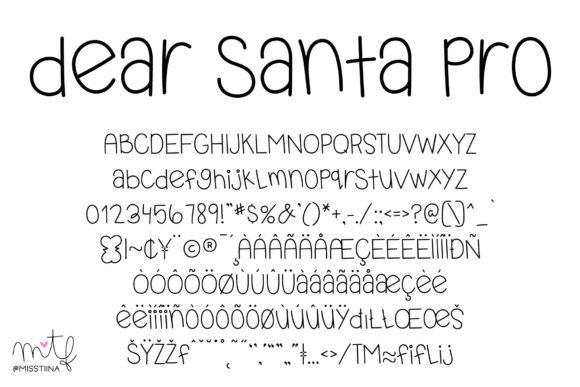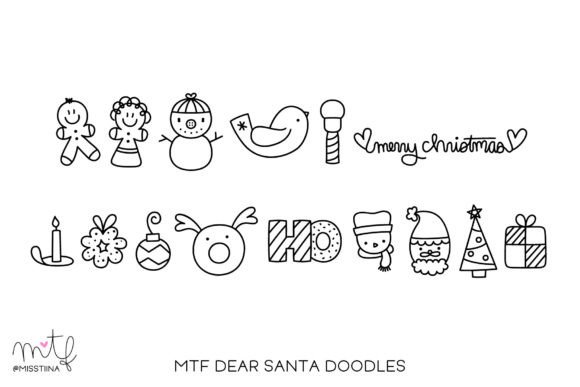
Introducing Dear Santa Pro Duo Font: A Festive and Whimsical Companion for Your Holiday Creations
Are you looking for a font that captures the magic and innocence of childhood, perfect for writing letters to Santa or creating festive holiday crafts? Look no further than the Dear Santa Pro Duo Font! This charming, handwritten font duo is designed to bring a touch of whimsy and fun to your holiday projects. In this article, we’ll dive into the features and benefits of Dear Santa Pro, and explore how you can use it to create something truly special this Christmas.
A Handwritten Font Duo like No Other
Dear Santa Pro is a unique and adorable font duo that consists of a handwritten sans font and a matching dingbats font. The handwritten sans font is designed to mimic the imperfect, yet endearing, handwriting of a child. Its rounded edges and soft curves evoke a sense of warmth and friendliness, making it perfect for writing letters to Santa, creating holiday cards, or crafting festive decorations.
The dingbats font, on the other hand, is a delightful collection of Christmas-themed illustrations, including snowflakes, holly leaves, bells, and more. These cute and original characters are designed to complement your writing and add a touch of festive flair to your projects. With Dear Santa Pro, you can create beautiful and eye-catching designs that are sure to delight both kids and adults alike.
Inspiration for Your Holiday Letters
One of the best things about Dear Santa Pro is that it not only provides a beautiful font for writing, but also offers inspiration for your holiday letters. The font comes with a range of festive phrases and sentences, such as “Dear Santa,” “Merry Christmas,” and “Happy Holidays,” to help you get started. You can use these phrases as-is, or mix and match them with your own writing to create a unique and personalized letter.
Cute and Original Christmas Doodles
One of the standout features of Dear Santa Pro is its collection of cute and original Christmas doodles. These charming illustrations are designed to complement your writing and add a touch of festive fun to your projects. From snowmen and reindeer to holly leaves and candy canes, the dingbats font has everything you need to create a beautiful and eye-catching design.
The Christmas doodles in Dear Santa Pro are perfect for adding a personal touch to your holiday crafts. You can use them to create festive borders, decorate your letters and cards, or add a touch of whimsy to your holiday decorations. With Dear Santa Pro, you can create something truly special and unique this Christmas.
Have Fun and Create Something Spectacular this Christmas!
With Dear Santa Pro Duo Font, the possibilities are endless! Whether you’re a designer, crafter, or hobbyist, this charming font duo provides the perfect combination of style, inspiration, and fun. So why not get creative this Christmas and see what amazing projects you can come up with?
Here are a few ideas to get you started:
- Write a letter to Santa using the handwritten sans font and decorate it with the Christmas doodles from the dingbats font.
- Create a festive holiday card using the Dear Santa Pro font and add a touch of whimsy with the cute and original Christmas doodles.
- Craft a beautiful holiday decoration using the Dear Santa Pro font and add a personal touch with the Christmas doodles.
| Author | Miss Tiina |
In conclusion, Dear Santa Pro Duo Font is a must-have for designers, crafters, and hobbyists looking to add a touch of festive fun to their holiday projects. With its charming handwritten sans font, cute and original Christmas doodles, and inspiring phrases, Dear Santa Pro provides everything you need to create something truly special this Christmas.
So why not give Dear Santa Pro a try and see what amazing projects you can come up with? With its ease of use, flexibility, and fun, Dear Santa Pro Duo Font is sure to become a favorite in your holiday crafting arsenal.